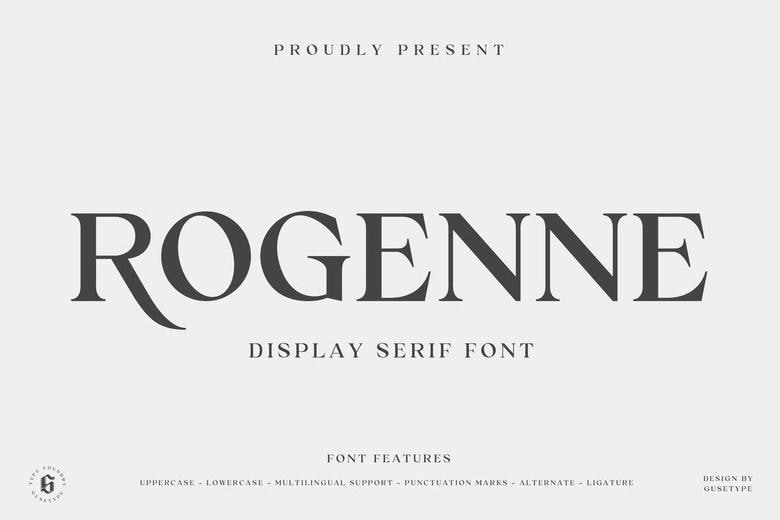
Rogenne Font
Rogenne is a display serif typeface, this serif typeface is the blend of contemporary readability and classical beauty that makes this font look like an everlasting beauty. Being designed with clean strokes and refined details, it provides a luxurious touch to your branding, headlines, logos, posters and invitations among many more.
Rogenne Serif Font